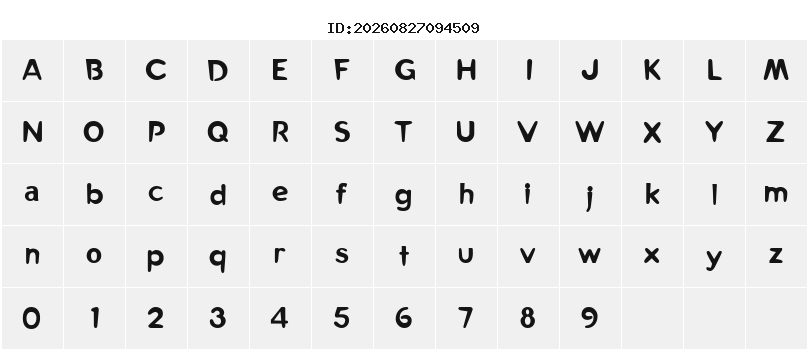
349-CAI978 Preview
• Font Name: 349-CAI978
• Full Font Name: 349-CAI978
About 349-CAI978.ttf
349-CAI978.ttf is a modern, elegant sans-serif font designed for ultimate readability and visual harmony. Perfect for branding, headlines, web design, and print materials.